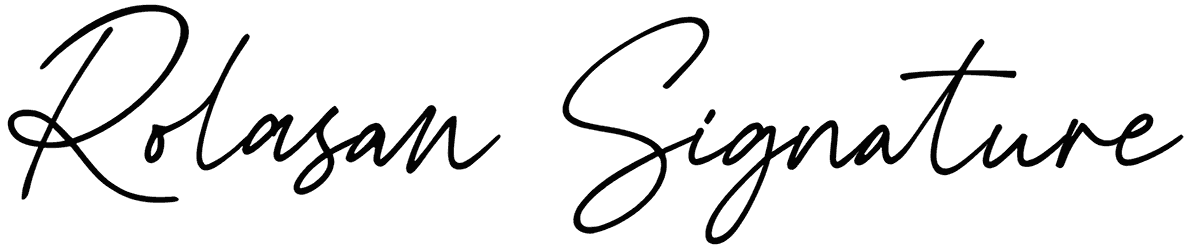
Rolasan Signature Font
Rolasan Signature belongs to the category of handwriting and script font. This fabulous style supports all characters; it is suitable for various purposes. This font represents a distinctive personality, and occasionally…
Rolasan Signature belongs to the category of handwriting and script font. This fabulous style supports all characters; it is suitable for various purposes. This font represents a distinctive personality, and occasionally, it is a bit childish. This elegant writing style can be used in comic books, children`s books, and similar use cases.